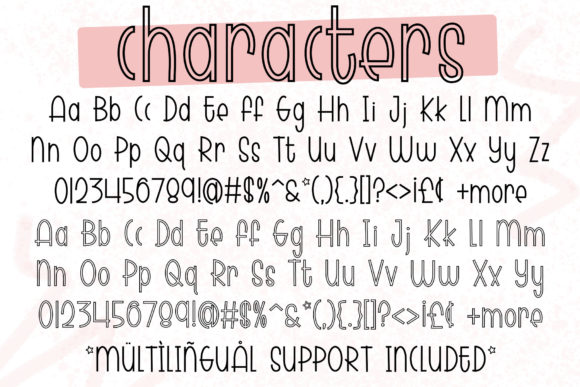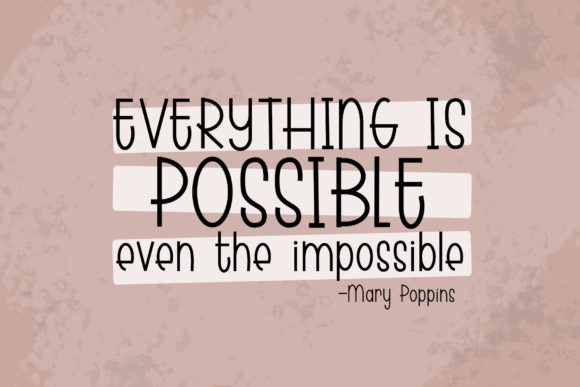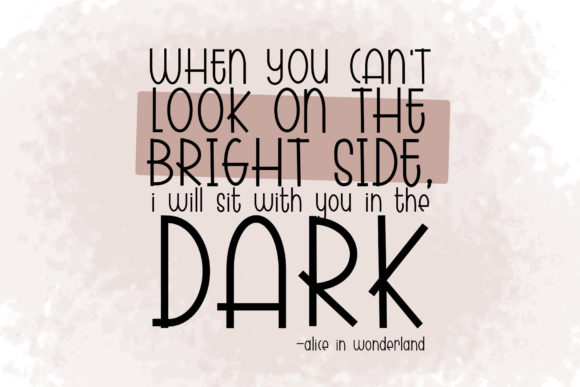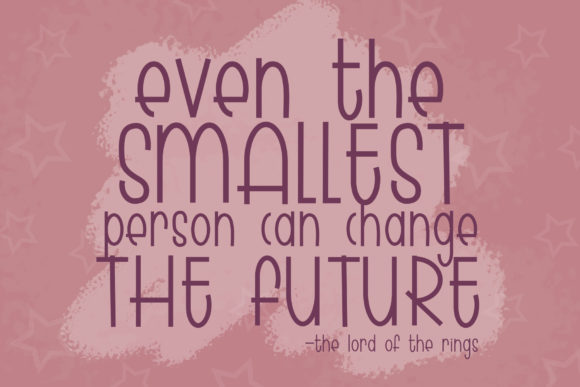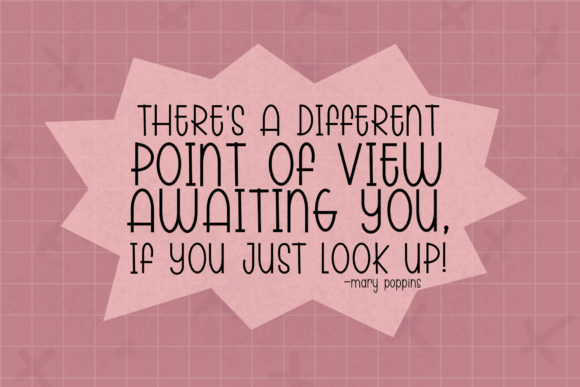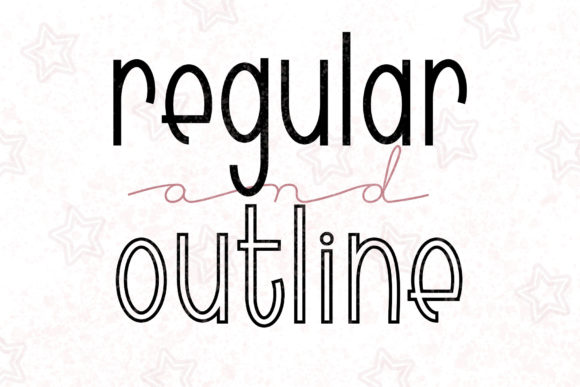
Cinema Font: Elevate Your Designs with a Minimal and Neat Sans Serif Font
Are you a designer or crafter looking for a font that can elevate your creative projects and make them stand out? Look no further than Cinema Font, a minimal and neat sans serif font that is perfect for a wide range of applications. In this article, we’ll take a closer look at Cinema Font, its features, and how you can use it to take your designs to the next level.
What is Cinema Font?
Cinema Font is a modern sans serif font that is designed to be clean, elegant, and highly versatile. Its minimalistic design makes it perfect for use in a variety of projects, from film and video production to graphic design, advertising, and more. The font is highly legible, making it easy to read and understand, even at small sizes.
Key Features of Cinema Font
So, what makes Cinema Font so special? Here are just a few of its key features:
- Minimal and neat design: Cinema Font has a clean and simple design that is perfect for creating modern and sophisticated designs.
- Sans serif: The font is sans serif, which means it doesn’t have any decorative lines or flourishes. This makes it highly legible and perfect for use in digital media.
- Highly versatile: Cinema Font can be used in a wide range of projects, from film and video production to graphic design, advertising, and more.
- Easily matched to a large set of projects: The font is highly adaptable and can be easily matched to a wide range of projects and styles.
How to Use Cinema Font in Your Designs
Now that we’ve covered the features of Cinema Font, let’s take a look at how you can use it in your designs. Here are a few ideas to get you started:
- Film and video production: Cinema Font is perfect for use in film and video production, whether you’re creating titles, credits, or other visual elements.
- Graphic design: The font is highly versatile and can be used in a wide range of graphic design projects, from brochures and flyers to posters and billboards.
- Advertising: Cinema Font is perfect for use in advertising, whether you’re creating print ads, digital ads, or social media graphics.
- Crafting and DIY projects: The font is also perfect for use in crafting and DIY projects, such as making signs, labels, or other decorative items.
Tips for Getting the Most Out of Cinema Font
Here are a few tips for getting the most out of Cinema Font:
- Experiment with different sizes and colors: Cinema Font is highly legible, even at small sizes, so don’t be afraid to experiment with different sizes and colors to find the perfect look for your design.
- Pair it with other fonts: Cinema Font can be paired with other fonts to create a unique and interesting look. Try pairing it with a serif font for a classic look or with another sans serif font for a modern look.
- Use it consistently: To create a cohesive look, use Cinema Font consistently throughout your design. This will help to create a strong visual identity and make your design stand out.
| Font Name | Cinema Font |
| Author | dansiedesign |
In conclusion, Cinema Font is a highly versatile and elegant sans serif font that is perfect for a wide range of design projects. Its minimal and neat design makes it highly legible and perfect for use in digital media. Whether you’re a designer, crafter, or DIY enthusiast, Cinema Font is a great choice for any project. So why not give it a try and see how it can elevate your designs and make them stand out?